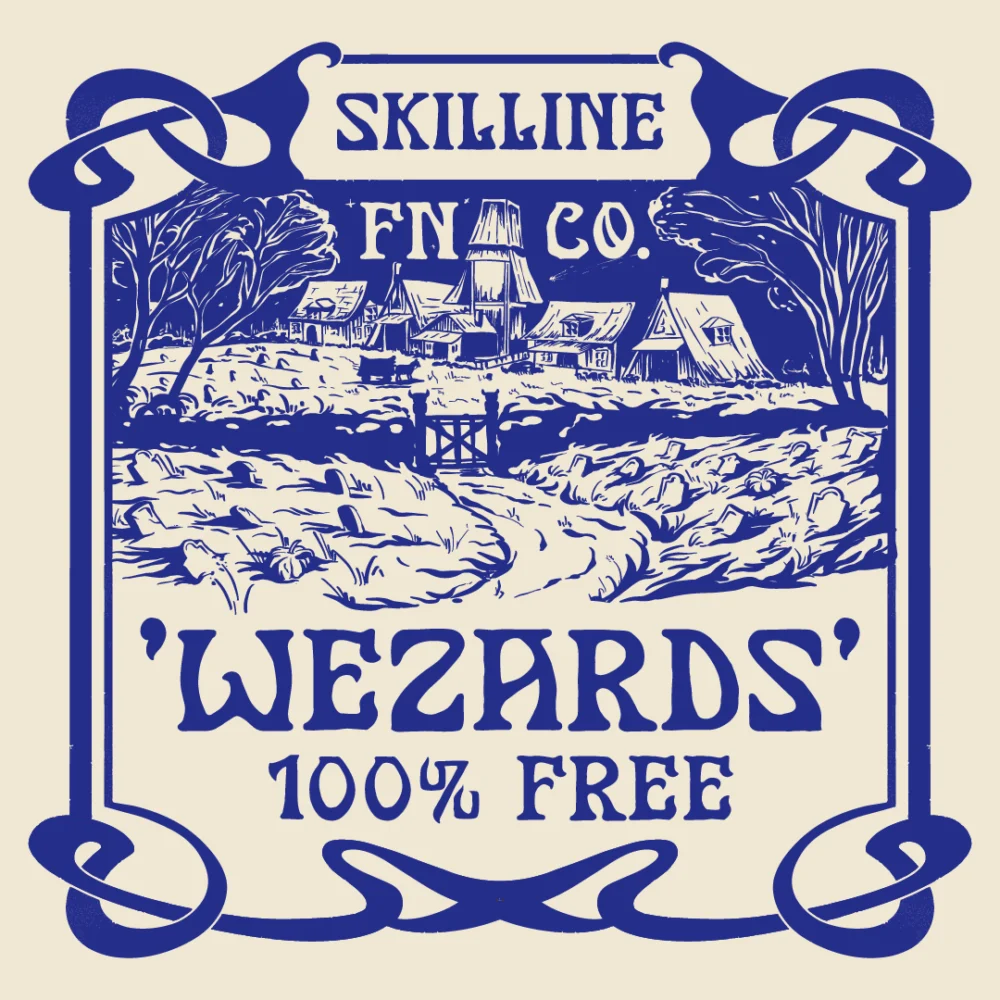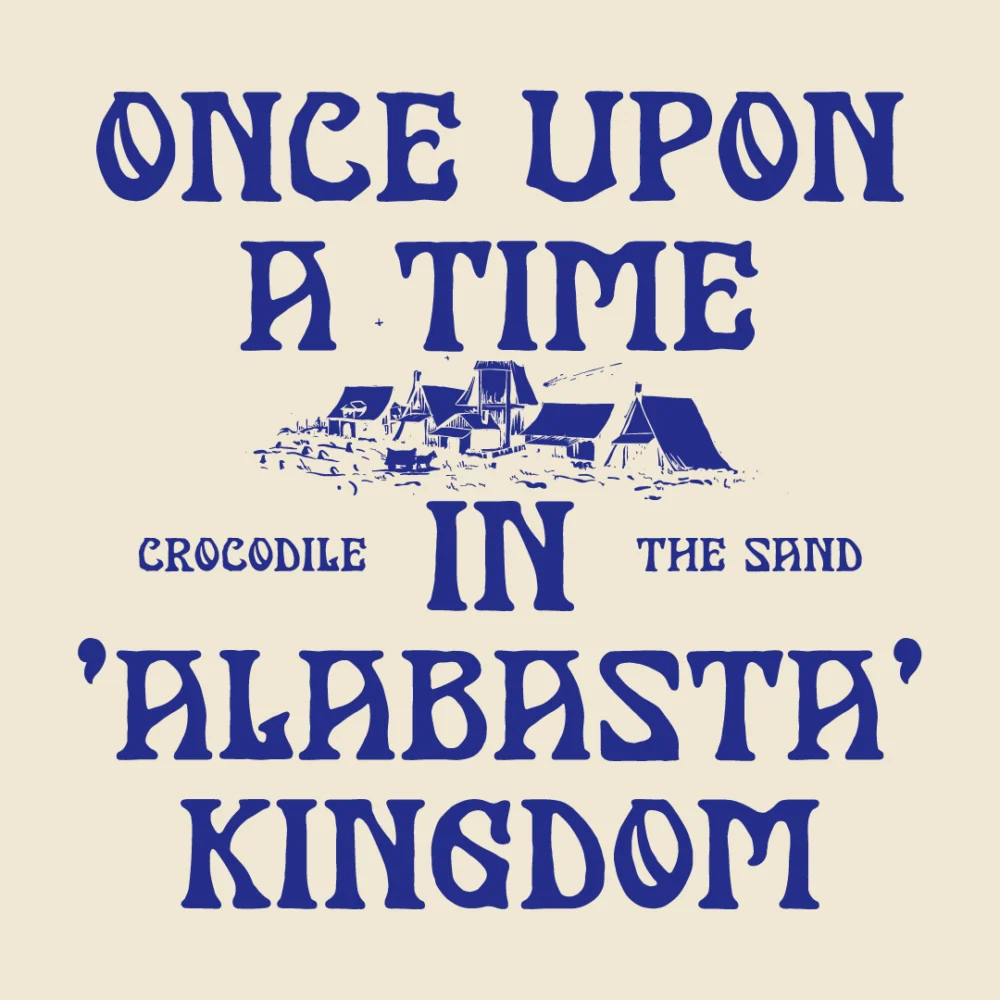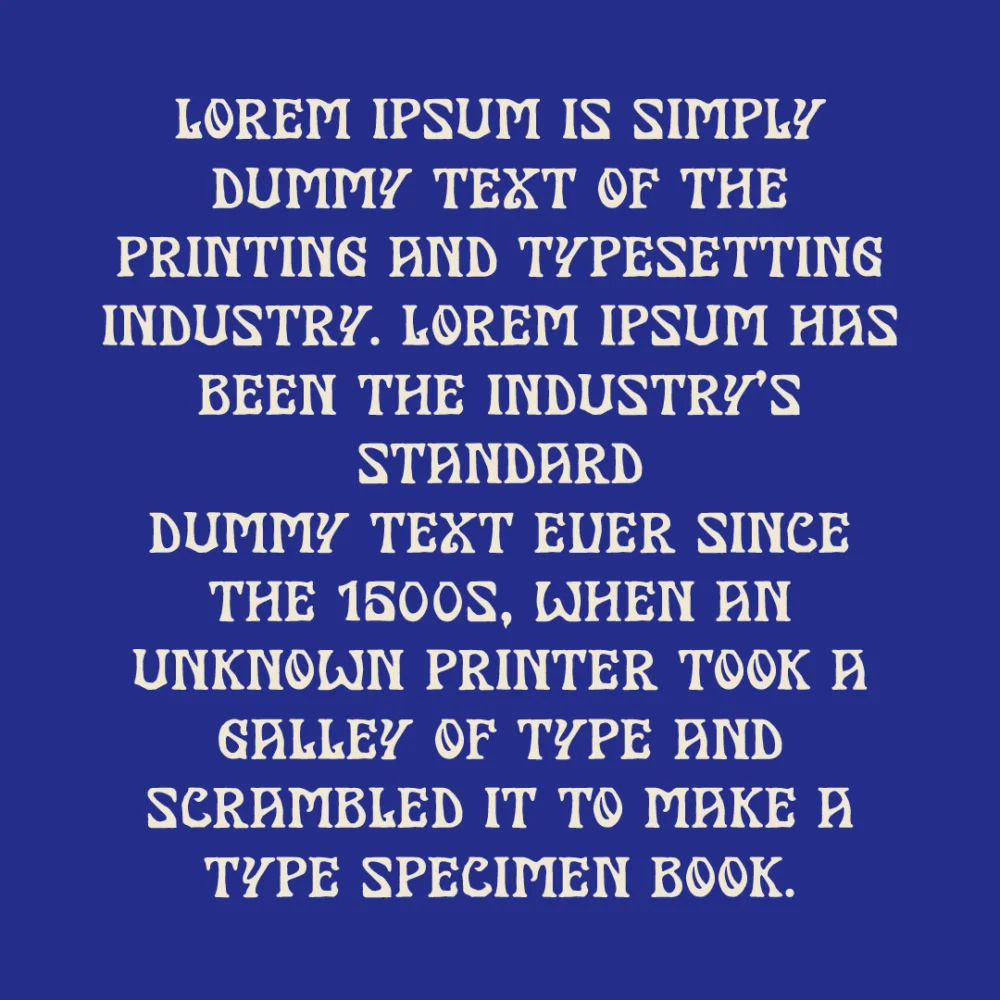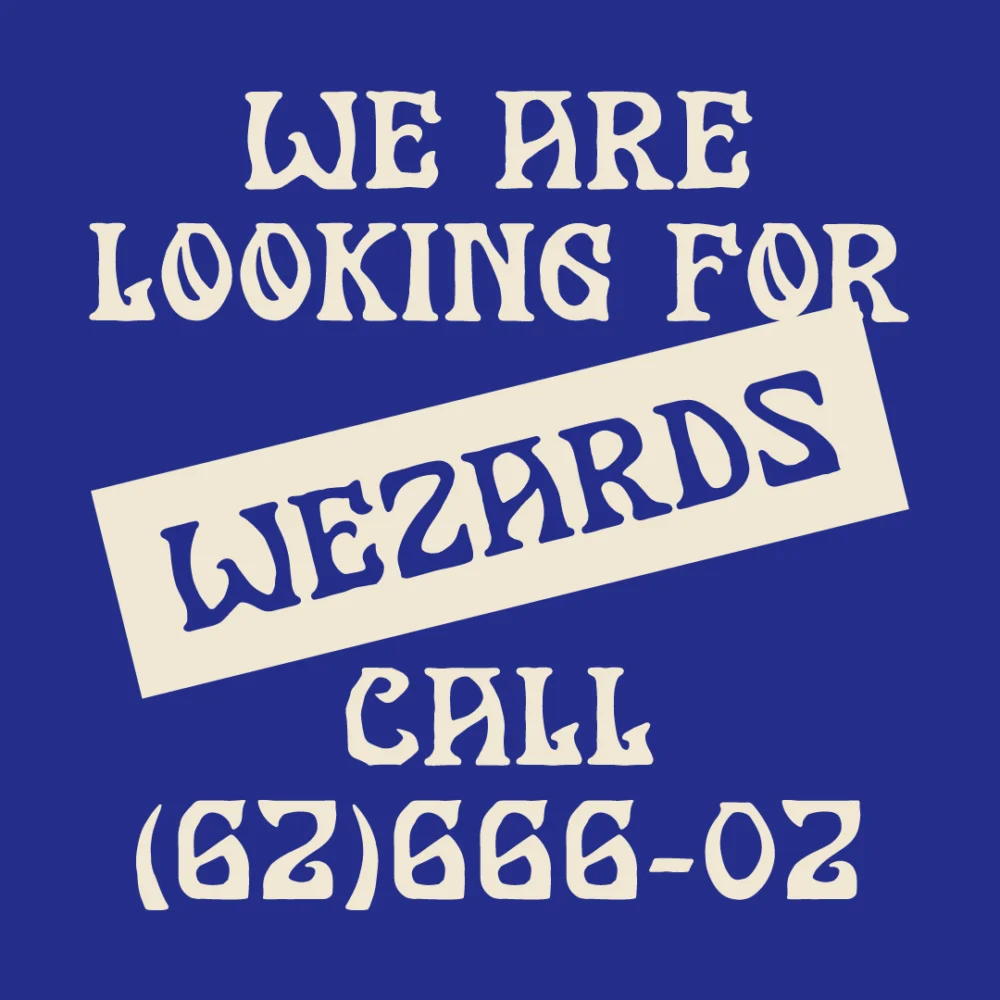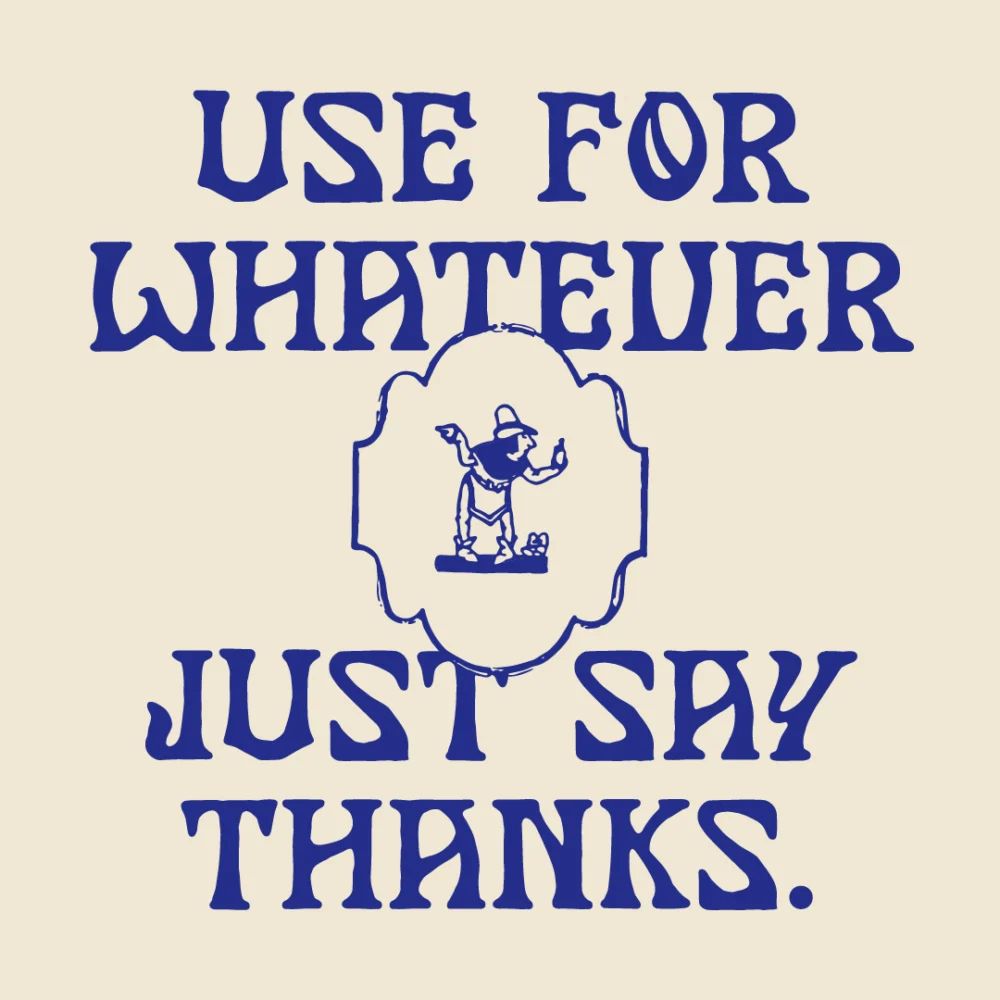
SFC Wezards. Inspired by psychedelic horror lettering, the kind that feels eerie, trippy, and slightly unsettling. It didn’t quite meet our internal standards… but we still wanted to share it. So here it is, released 100% free.